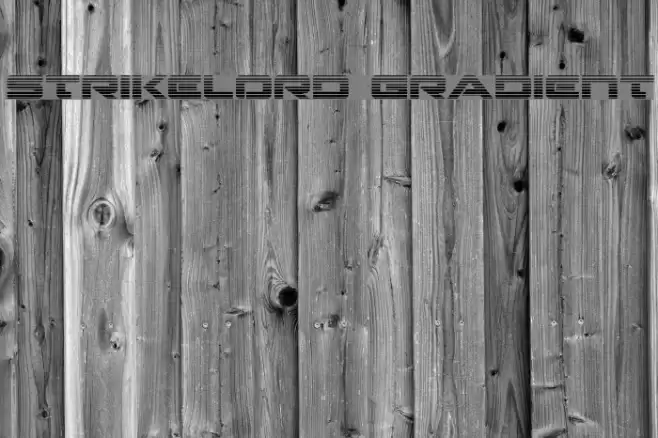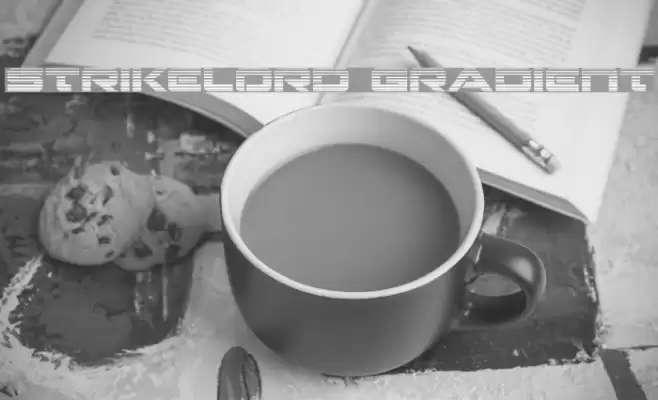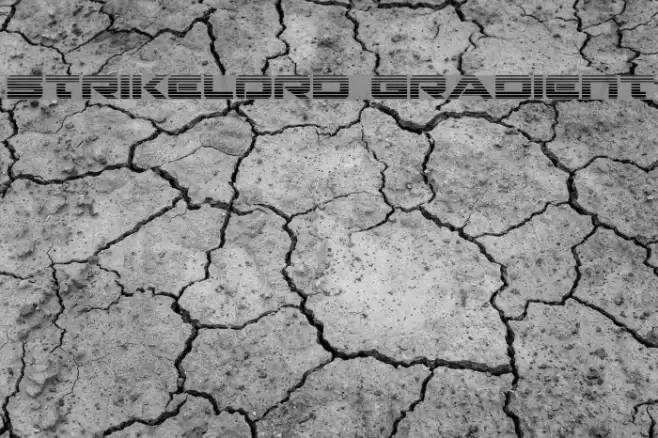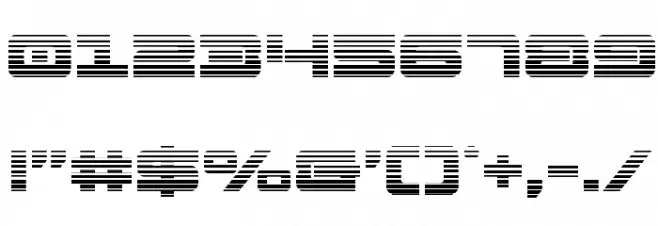
Strikelord Gradient Font
Strikelord Gradient Description
This font features a bold and futuristic design characterized by its horizontal striped pattern that creates a gradient effect across each character. The uppercase and lowercase letters maintain a consistent width, giving the font a uniform appearance. The numerals and special characters are designed with the same striped effect, ensuring a cohesive look throughout. The font's unique style makes it stand out, with each character appearing as if it's composed of multiple parallel lines, adding a sense of movement and dynamism.
A bold, futuristic font with a horizontal striped gradient effect from Uncategorized fonts.
- Proposed Projects: Ideal for sci-fi themed projects, video game titles, posters, and branding that requires a modern and edgy look.